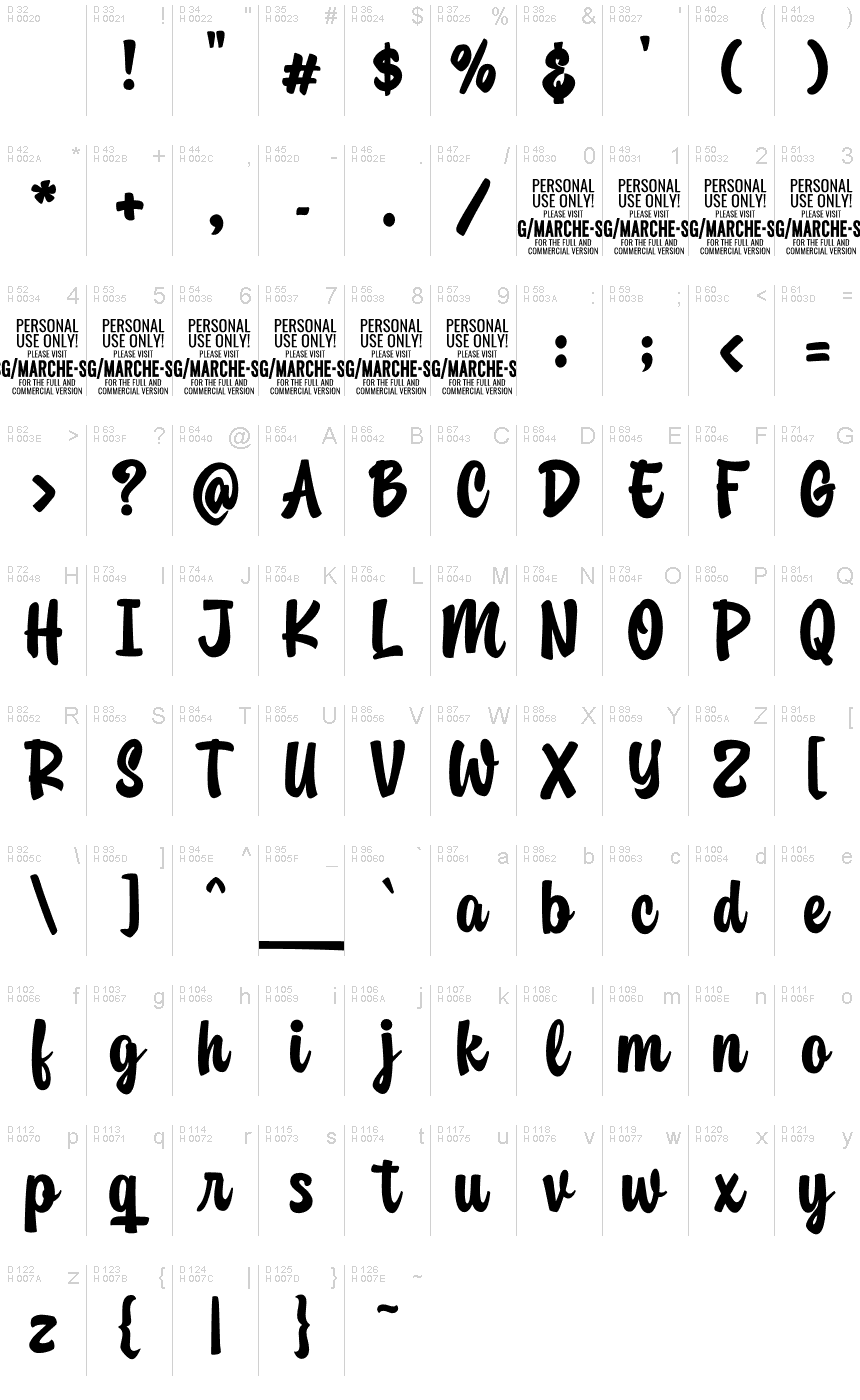
Marche Script PERSONAL USE Regular
Marche Script, designed by Mans Greback, is a bold and expressive tropical script font that will add a touch of flair to any design project. With its flowing curves and sharp edges, Marche Script is perfect for creating eye-catching logos, branding materials, advertising campaigns, and more. This typeface comes in a bold weight which makes it ideal for headlines and titles that need to stand out. The font's unique style also makes it suitable for designing invitations or cards for special events such as weddings or birthdays. Give your designs the tropical vibe they deserve with Marche Script!
Use underscore _ anywhere in a word to make a swash.
Example: World_score
Use multiple underscores to make swashes of different lengths.
Example: Brand_____Genie